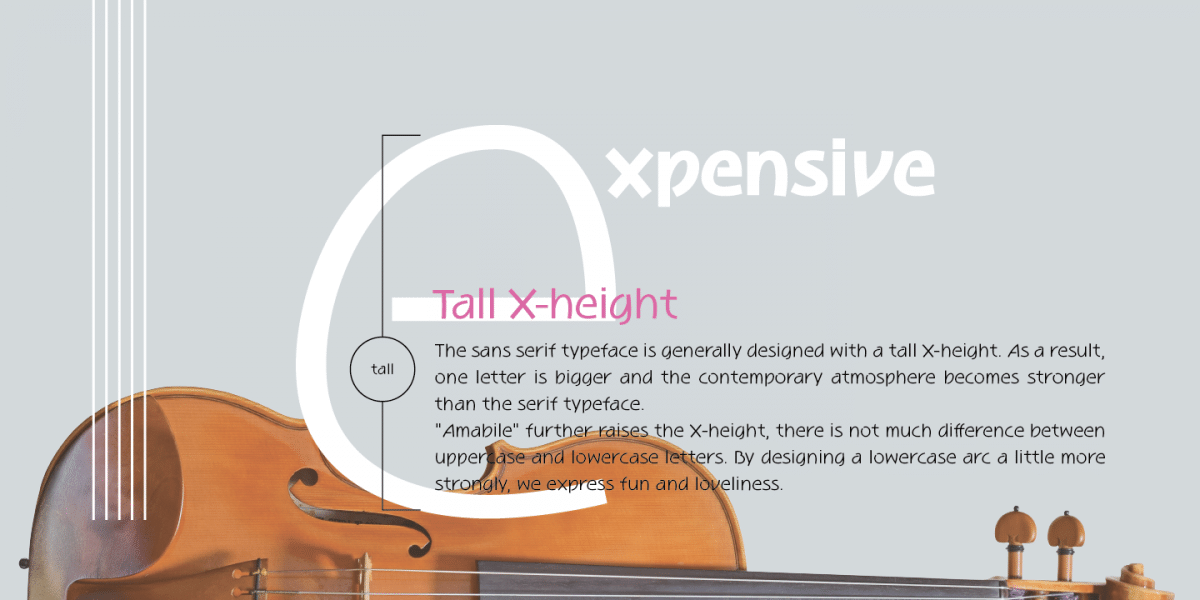
Amabile Sans Serif Font
I am a Japanese font artist, and this is my first challenge at a full-fledged Latin fonts.
The typeface name is “Amabile (Adorable, прекрасный, Αρκετά/Αξιολάτρευτο)”. It means “lovely” in music terms.
The design feature reflects the feature of Japanese typeface “Waon”, as the depending latin characters of which this typeface is designed.
“Amabile” briefly expresses the basic concept of Waon, to “Express a music with typeface”.
The non-Japanese characters in the Japanese font are basically composed with Latin, Cyrillic, and Greek. In addition to these 3 types of characters, “Amabile” have the capability of 87 languages by extending character types so called “W1G”, which consists of Latin supplements, Cyrillic supplements, Greek supplements, Latin extensions.